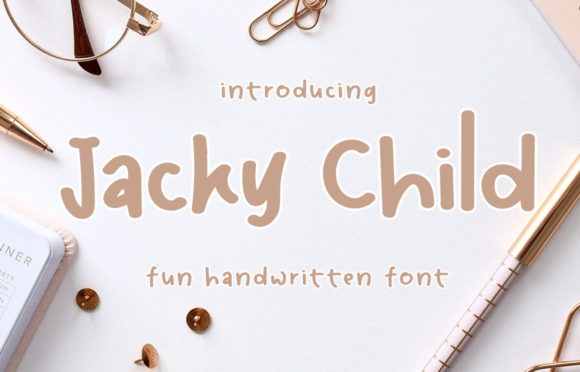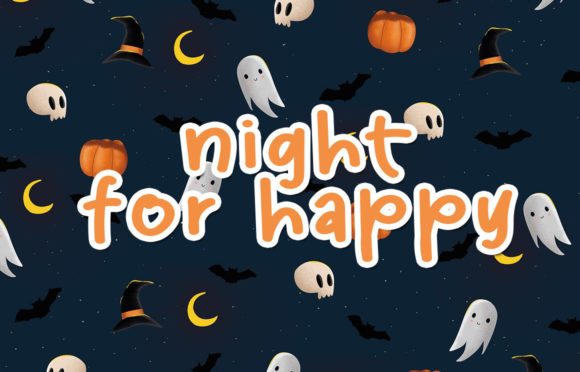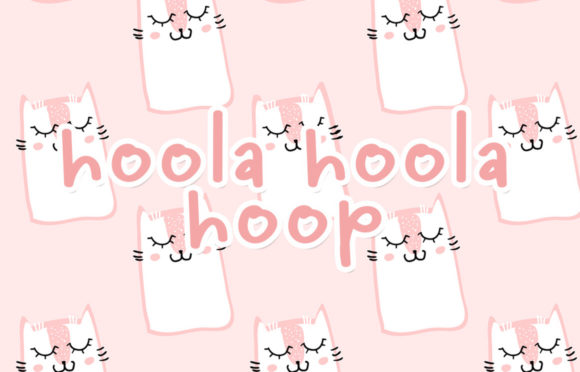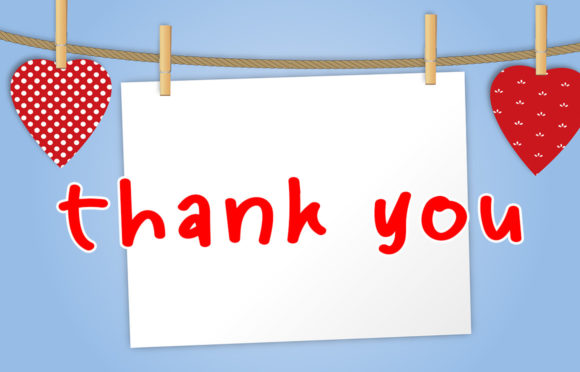
Jacky Child Font
About Jacky Child Font
Jacky Child is a beautiful and sweet font. Fresh, clean, and elegant, it will look amazing on a great number of products, both formal and informal. By using this font, you will add an incredibly joyful touch to your designs, and you will notice that they have never looked more beautiful!